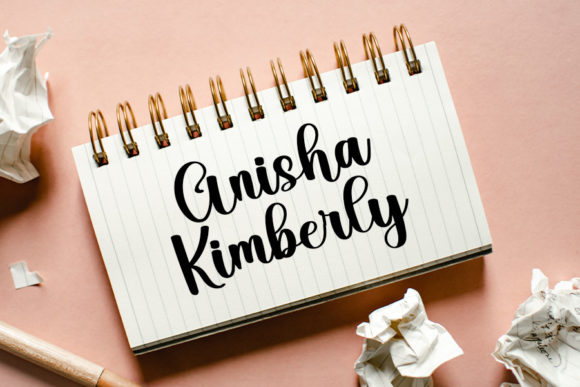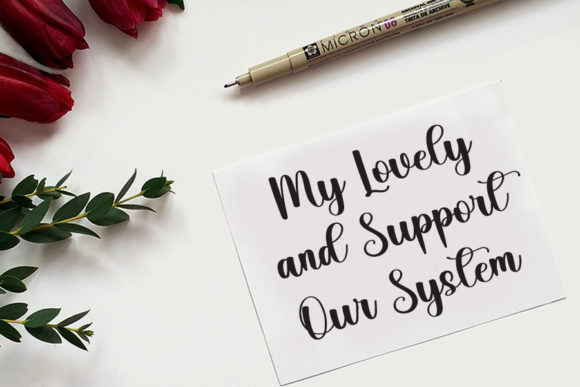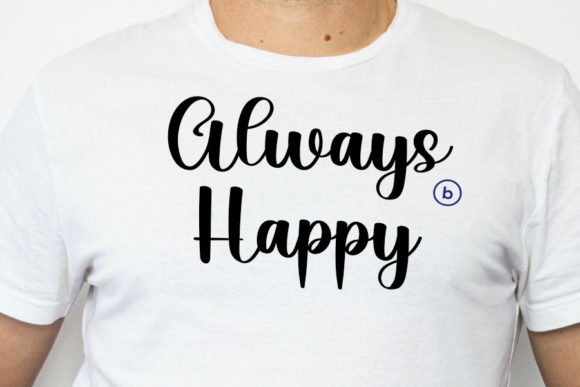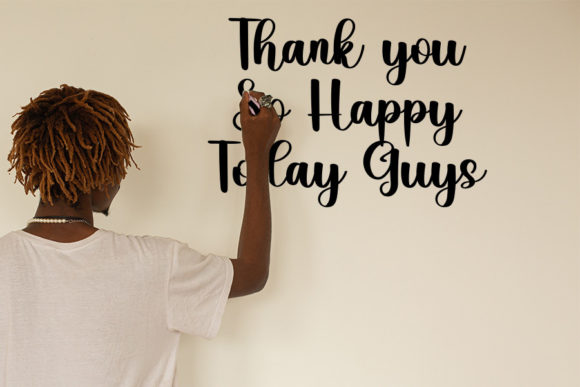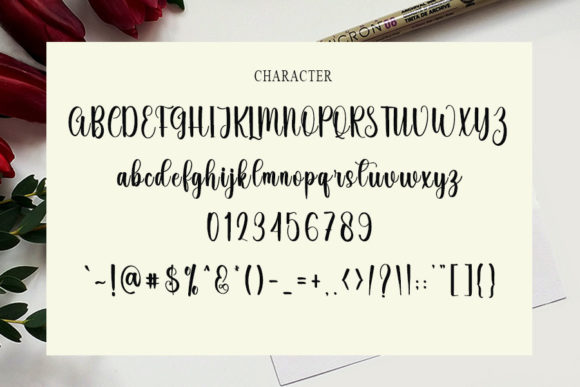
Sometime Font
“Sometime” is a stylish handwritten font that exudes a contemporary vibe and flawless form. Drawing inspiration from timeless classic calligraphy, it brings a touch of elegance and class to any design project. This font is versatile and can be used to enhance various types of products based on individual requirements.
One of the standout features of “Sometime” is its trendy appeal. Its modern atmosphere and impeccable form make it a popular choice among designers who want to give their projects a fresh and stylish look. The font’s unique design elements, such as its elegant curves and stylish letterforms, contribute to its trendy and chic appeal.
In addition to its beautiful design, “Sometime” is also highly practical. It is PUA encoded, which means you can easily access all of its amazing glyphs and ligatures. This makes it a versatile tool for designers, allowing them to express their creativity and bring their visions to life.
Whether you’re working on a branding project, designing a logo, creating social media posts, or planning a wedding, “Sometime” can help you achieve the look and feel you’re aiming for. Its elegant design, combined with its versatility and ease of use, makes it a valuable asset for any designer.